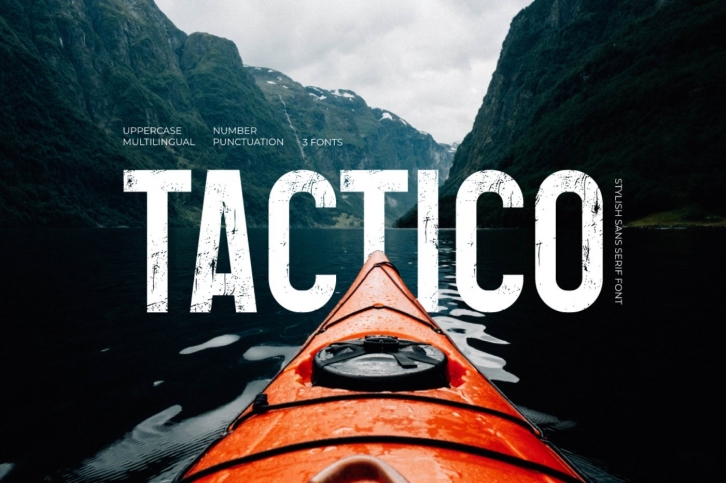
Tactico is an all caps sans serif font, with several bonus variations that you can get at once, namely regular, bold, and grunge/distressed style. This font is perfect for logos, branding projects, posters, magazines, news, social media, product packaging, and more.
- 3 Fonts ( Regular, Bold and Distressed/Grunge)
- Uppercase and Multilingual Glyphs.